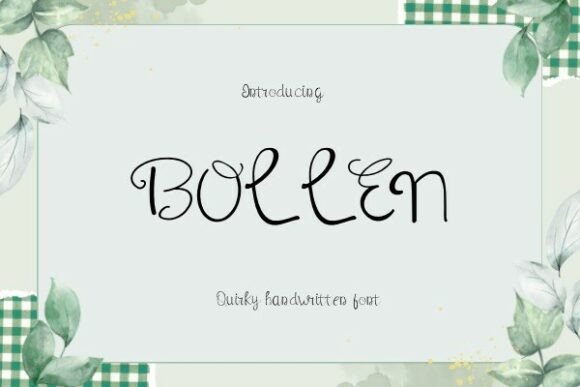
Discover the Playful Charm of Bollen Quirky Handwritten Font
Have you ever been in the middle of a design project, and suddenly, you’re stuck on finding the perfect font? I recall a recent experience where I was working on a nursery decor project for a client’s baby shower gift. The theme was whimsical and playful, and I needed a font that would capture that essence. That’s when I stumbled upon the Bollen Quirky Handwritten Font, and it instantly became my go-to choice.
A Font that Brings Joy and Whimsy
The Bollen Quirky Handwritten Font is characterized by its whimsical loops and irregular, hand-drawn bounce. This font is the ultimate choice for fun and creative projects, such as nursery decor, children’s birthday shirts, and “punny” tote bags. The light, airy feel of the satin stitching keeps the design from being too heavy, allowing the quirky details to shine through.
- ✨ Unique and playful character with whimsical loops and irregular bounce
- ✅ Exceptionally well-suited for nursery decor, children’s birthday shirts, and “punny” tote bags
- ✅ Light, airy feel with satin stitching that keeps the design from being too heavy
- ✅ OpenType features and glyphs that allow for creative experimentation
While the Bollen Quirky Handwritten Font is an excellent choice for many projects, there are a few things to consider:
- ⚠️ The font’s irregular bounce may not be suitable for very formal or traditional designs
- ⚠️ Some users may find the font’s quirks challenging to work with, especially when it comes to kerning and spacing
- 🤔 The font’s uniqueness may not be suitable for projects that require a more traditional or classic look
The Backstory Behind Bollen Quirky Handwritten Font
The Bollen Quirky Handwritten Font was designed with the intention of capturing the playful and whimsical spirit of handmade crafts. The designer, inspired by the world of embroidery and satin stitching, created a font that would bring joy and personality to any project. With its unique character and OpenType features, the Bollen Quirky Handwritten Font is sure to become a favorite among designers, crafters, and creative hobbyists.
Q: What is the Bollen Quirky Handwritten Font best suited for?
A: The Bollen Quirky Handwritten Font is exceptionally well-suited for nursery decor, children’s birthday shirts, and “punny” tote bags.